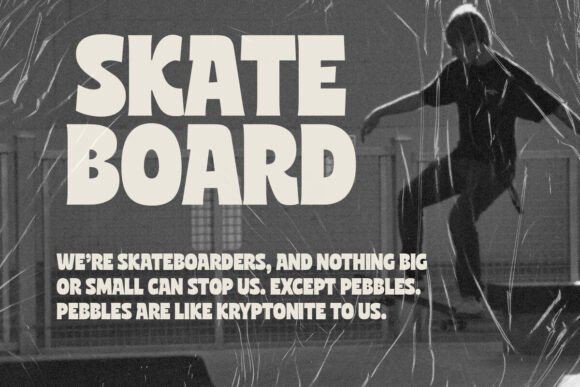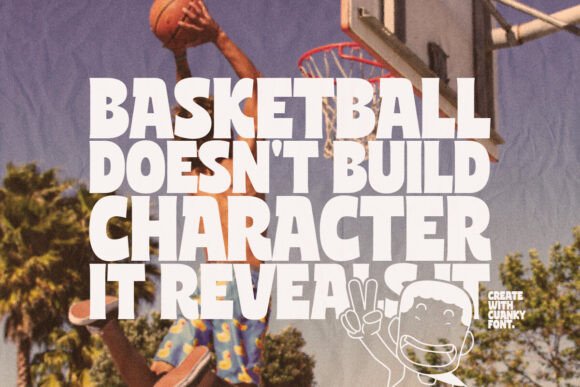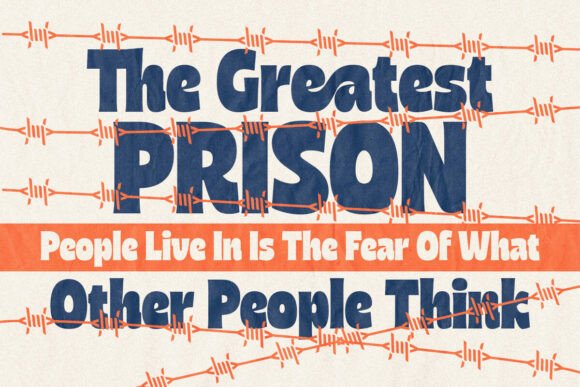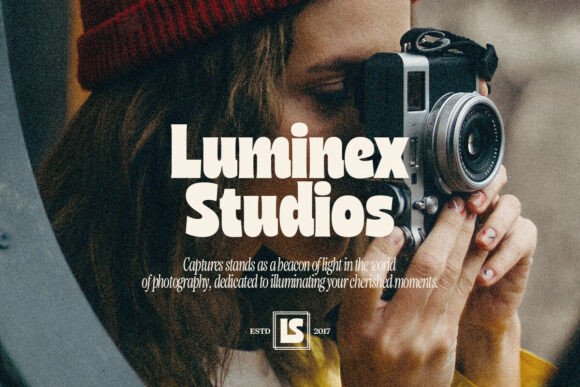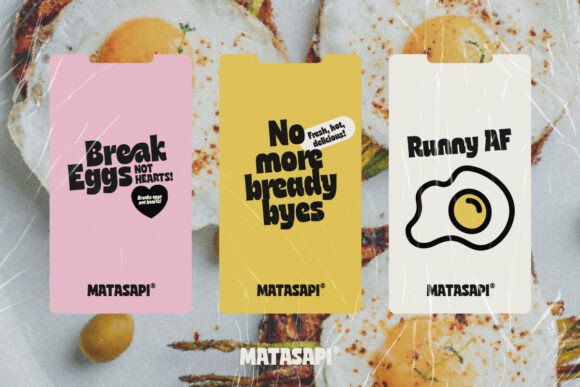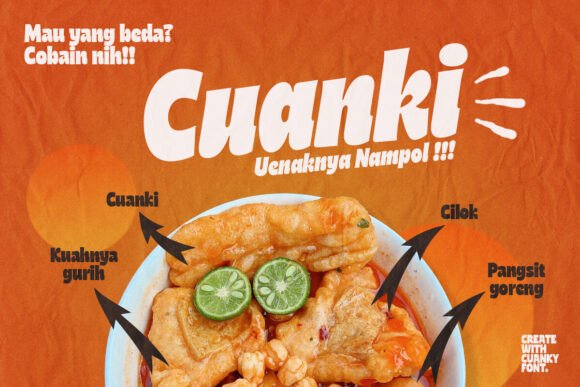
Introducing Cuanky Font: The Ultimate Retro Display Font for Creative Projects
Are you looking for a font that can add a dash of warmth, friendliness, and personality to your creative projects? Look no further than Cuanky Font, a super fun, chunky retro display font that’s inspired by the playful design aesthetics of the 70s and 80s. With its bold, bouncy, and unapologetically fun vibe, Cuanky is the perfect choice for designers and crafters who want to add a touch of nostalgia to their work.
The Inspiration Behind Cuanky Font
Cuanky Font is inspired by the iconic design elements of the 1970s and 1980s, an era known for its bold, colorful, and playful visual language. The font’s soft curves, thick forms, and slightly quirky character shapes give it a handcrafted and approachable feel, reminiscent of vintage posters, flyers, and advertisements from the era. Whether you’re designing for skate culture, streetwear, indie food spots, or vintage-inspired campaigns, Cuanky Font is sure to bring a smile to your audience’s faces.
Key Features of Cuanky Font
- Bold and Bouncy: Cuanky Font is a display font that’s designed to make a statement. Its thick, chunky letters are perfect for headlines, titles, and short phrases.
- Retro Vibe: Cuanky’s inspiration from 70s and 80s design aesthetics gives it a distinctly retro feel that’s perfect for nostalgic visuals.
- Handcrafted Look: The font’s soft curves and slightly quirky character shapes give it a handcrafted and approachable feel.
- Versatile: Cuanky Font can be used in a variety of creative projects, from editorial layouts and social media graphics to advertising, product labels, and playful logos.
Perfect Pairings for Cuanky Font
To get the most out of Cuanky Font, try pairing it with bold photography, grainy textures, or halftone overlays to amplify its retro pop appeal. This will help to create a visually striking design that’s sure to grab attention. Additionally, Cuanky Font works well with a range of design elements, including:
- Bold Colors: Cuanky Font looks great with bright, bold colors that match its playful and energetic vibe.
- Geometric Shapes: The font’s chunky, retro style pairs well with geometric shapes and patterns.
- Texture and Patterns: Adding texture and patterns to your design can help to enhance Cuanky Font’s handcrafted look.
Using Cuanky Font in Your Designs
Cuanky Font is a versatile typeface that can be used in a wide range of creative projects. Here are some ideas to get you started:
- Food Branding: Cuanky Font is perfect for food branding, particularly for restaurants, cafes, and food trucks that want to add a touch of nostalgia to their branding.
- Merchandise: The font’s bold, playful style makes it ideal for merchandise, such as t-shirts, stickers, and posters.
- Packaging: Cuanky Font can add a touch of personality to product packaging, making it stand out on store shelves.
- Vintage-Inspired Campaigns: The font’s retro vibe makes it perfect for vintage-inspired campaigns, such as ads, posters, and flyers.
Cuanky Font is a unique and versatile typeface that’s perfect for designers and crafters who want to add a touch of warmth, friendliness, and personality to their creative projects. With its bold, bouncy, and unapologetically fun vibe, Cuanky Font is sure to bring a smile to your audience’s faces. Whether you’re designing for food branding, merchandise, packaging, or vintage-inspired campaigns, Cuanky Font is the perfect choice. So why not take your designs on a flavorful retro ride with Cuanky Font?